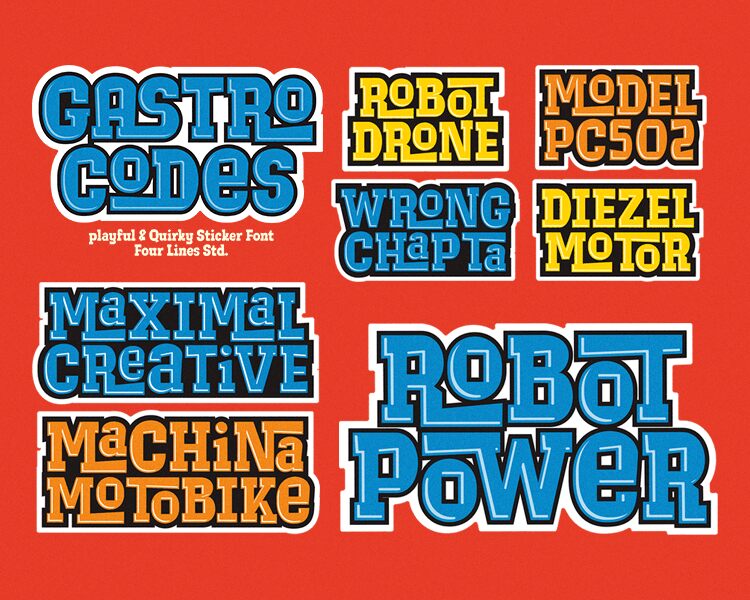
Gastro Codes
Gastro Codes font, designed by Four Lines, is a bold display typeface with an industrial influence. Its strong presence is achieved with geometric shapes and modern yet classic feel. Gastro Codes features heavy letters, visible details, and classic serifs which complement the overall aesthetic.
This free font can be used in editorial designs including articles, journals, and magazines covers. It can also be used for posters and flyers that advertise parties and sports events as well as food-related topics since it has glyphs shaped after food ingredients.